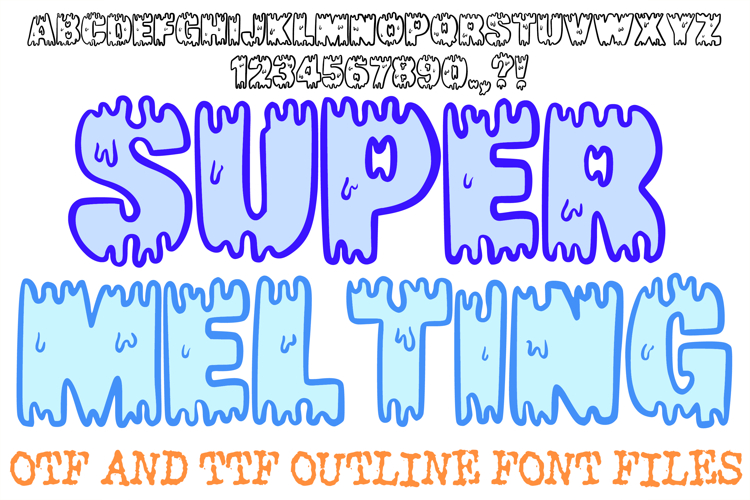
The Super Melting Font is a high-energy display typeface that captures the fluid, viscous motion of liquid matter cascading downward. Featuring bold, rounded letterforms with elongated "drip" terminals and internal moisture droplets, this font is a premier choice for designers working on summer festival branding, ice cream parlor menus, edgy streetwear, and playful horror-themed graphics.
The design captures a sense of slow, gravity-fed movement, where each character appears to be transitioning from a solid to a liquid state. Whether you are building an identity for a high-impact snack brand or designing vibrant posters for a youth event, this font provides a messy, "wet-look" aesthetic that is both creative and remarkably legible.
Dynamic Melting Accents: Every character features smooth, organic drips at the base, adding a layer of tactile movement to your headlines.
Moisture Detail Marks: Subtle interior "bead" marks suggest a freshly poured or thawing surface, enhancing the three-dimensional, liquid personality of the type.
Bold Liquid Construction: The heavy, rounded weight of the characters provides a friendly yet powerful foundation for high-visibility digital and print assets.
Playful Messy Aesthetic: Perfectly tailored for themes ranging from "slime" and "goo" to "sweet syrup," making it a versatile tool for diverse creative projects.